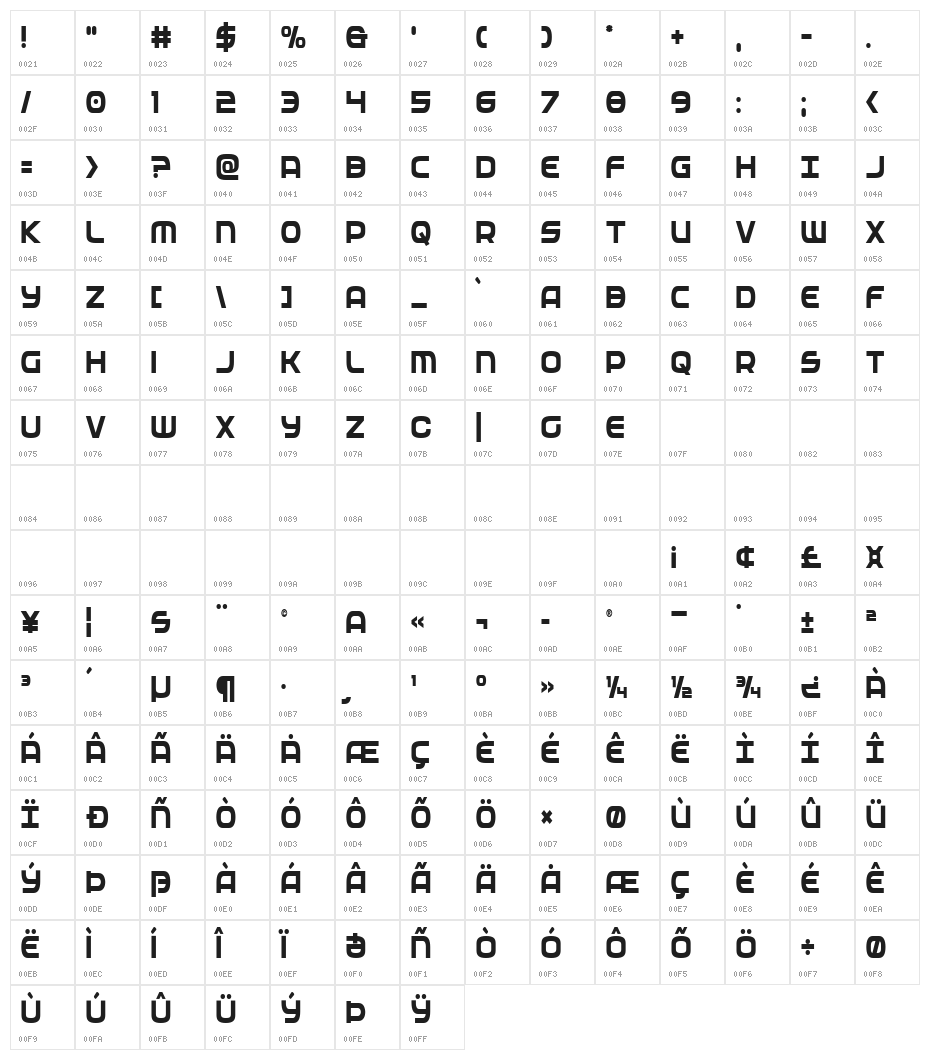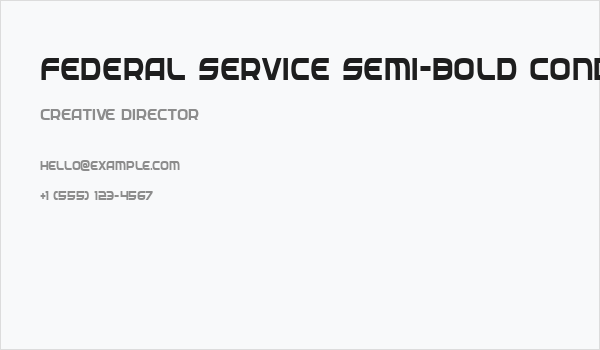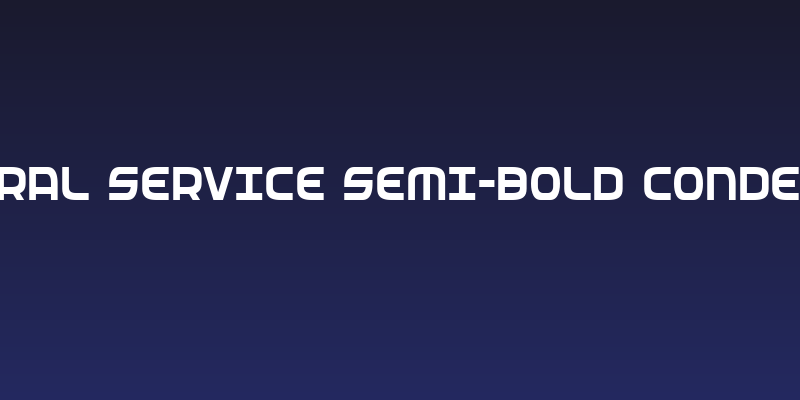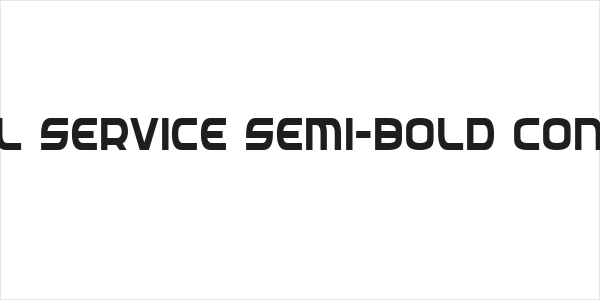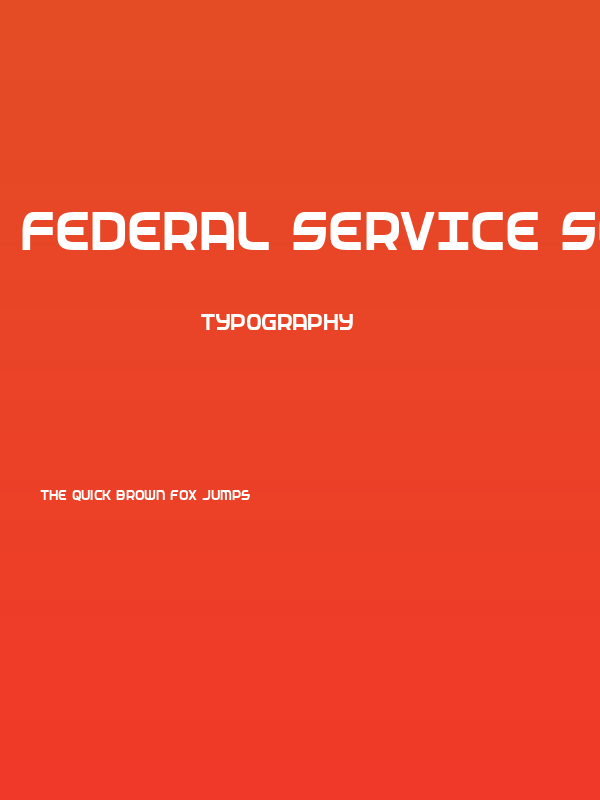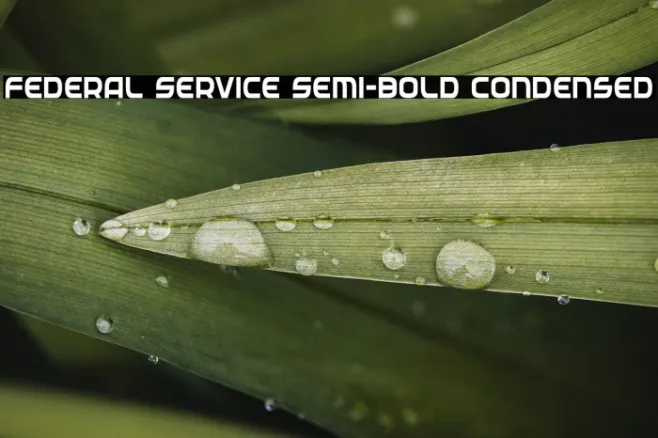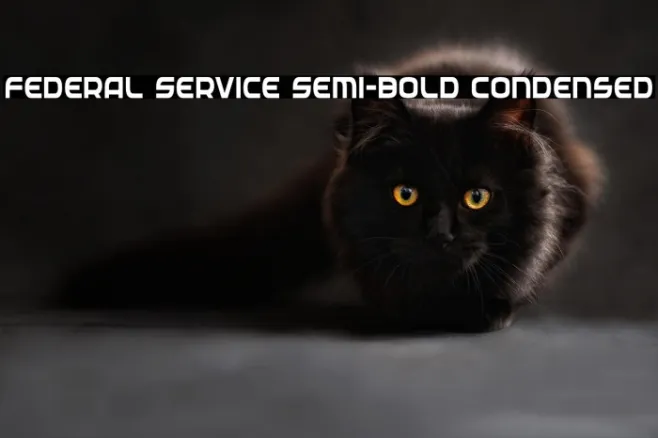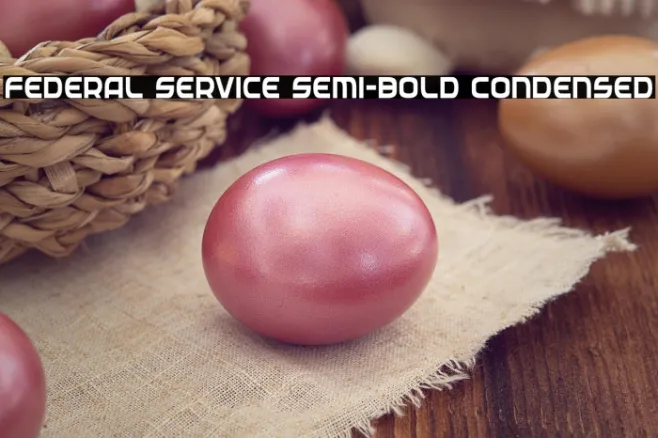
Federal Service Semi-Bold Condensed Font
Federal Service Semi-Bold Condensed Description
This font features a bold and condensed style with a modern, geometric appearance. The characters are uniform in width, creating a cohesive and structured look. The uppercase letters have a strong presence, while the lowercase letters maintain a consistent height, contributing to the font's readability. The numerals are clear and distinct, matching the boldness of the alphabet. Special characters are designed to complement the overall style, making this font versatile for various applications. The clean lines and lack of serifs give it a contemporary feel, suitable for both digital and print media.
| Use Case | Headlines, Logos, Signage |
| Proposed Projects | Ideal for branding, signage, headlines, and digital interfaces where a modern and bold statement is needed. |